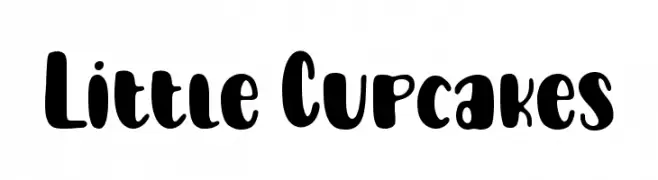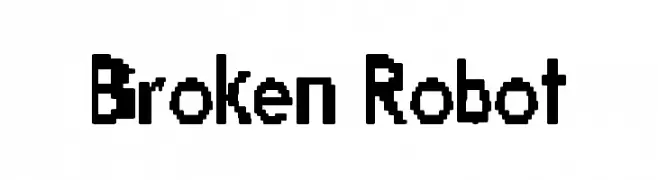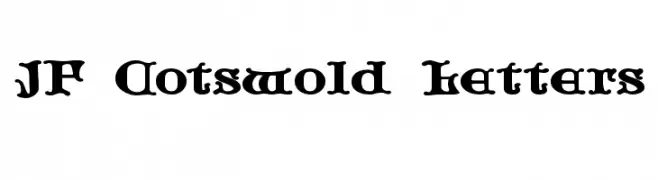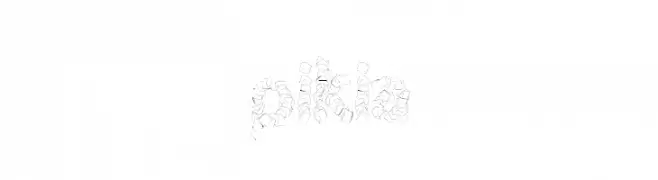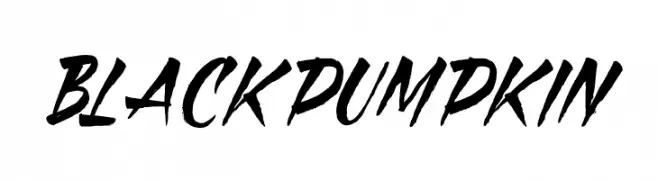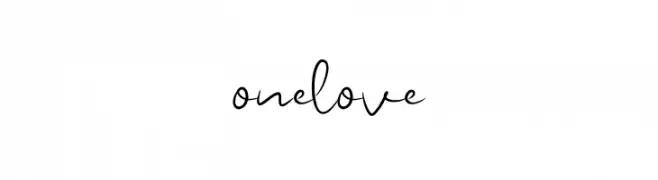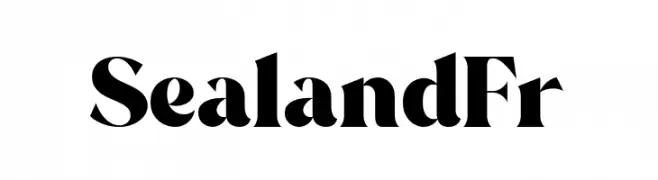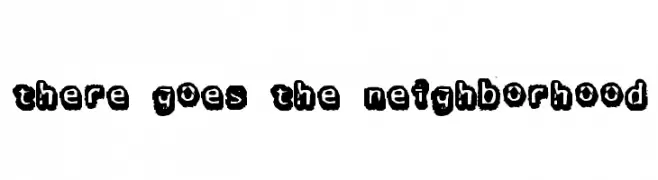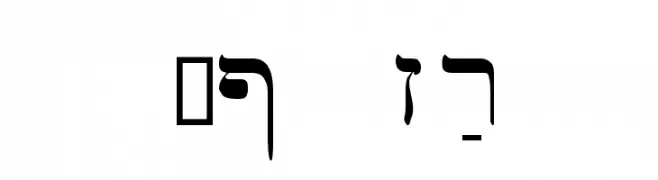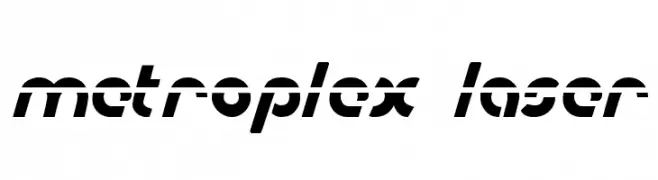
A bold, playful font with rounded, bubble-like characters.
A playful, bold, and rounded font with a hand-drawn feel.
A bold, decorative font with vintage flair and unique serifs.
A playful, hand-drawn font with a whimsical and informal style.
A bold, slanted font with a modern and dynamic style.
A modern, geometric sans-serif font with clean lines and balanced proportions.
A bold, brush-style font with dynamic, expressive strokes.
A flowing, cursive font with elegant loops and artistic flair.
A bold, geometric font with a futuristic and striking design.
A flowing, cursive font with elegant, interconnected letters and a handwritten style.
A bold, modern blackletter-inspired font with sharp, angular strokes.
A bold, high-contrast serif font with a modern yet classic style.
A bold, distressed font with a rugged, textured appearance.
A playful, hand-drawn font with bold, rounded characters and a whimsical style.
An intricate blackletter font with a medieval, gothic style.
A bold, futuristic font with angular, slanted letterforms and a geometric style.
A bold, retro-inspired font with rounded, playful characters.
A bold, modern sans-serif font with an oblique style and consistent thickness.
A bold, playful script font with whimsical curves and ornate details.
A bold, italicized sans-serif font with a modern and clean style.
A bold Gothic font with sharp, angular lines and a dramatic presence.